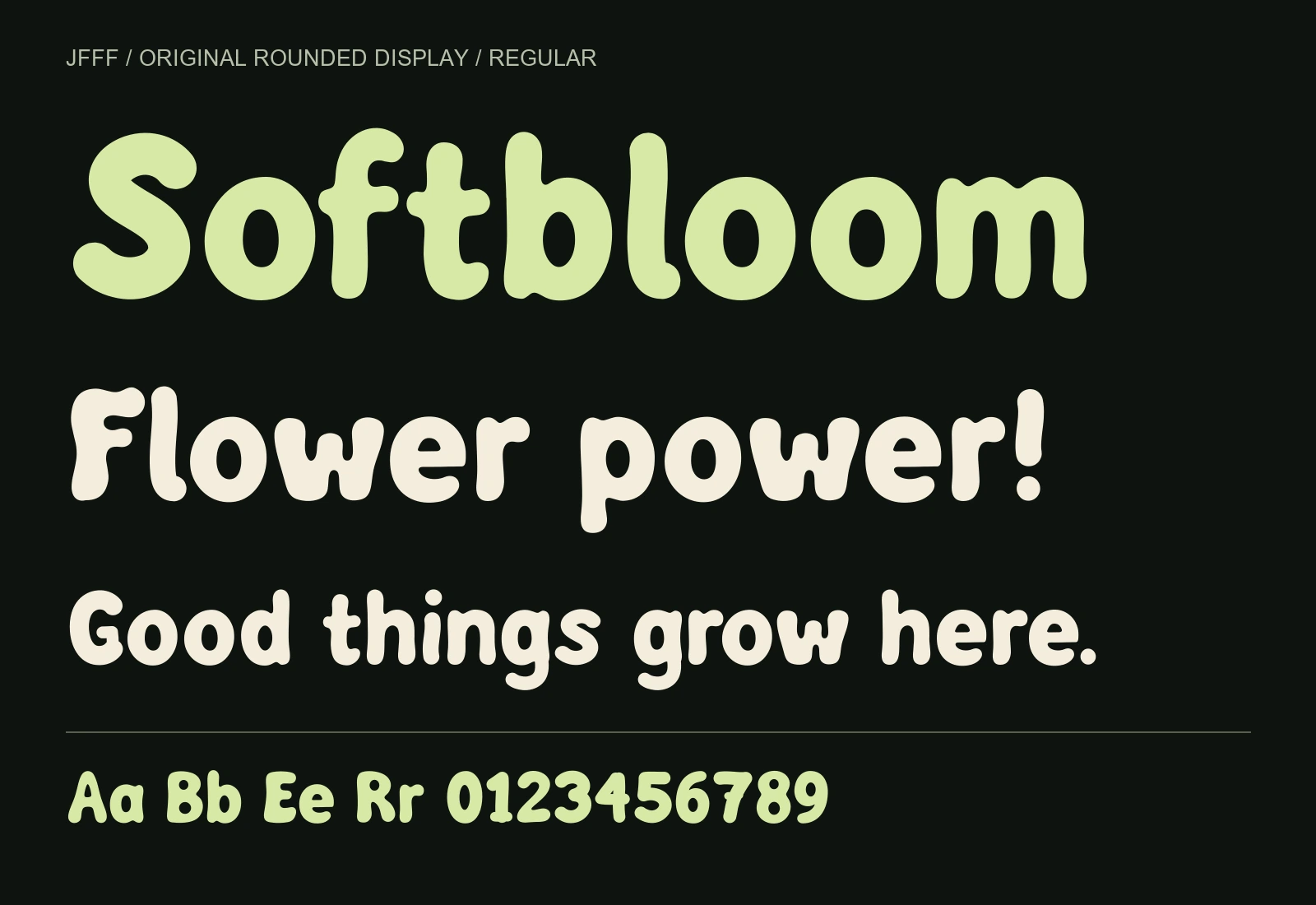
Softbloom rounded bubble font: Flower power! Good things grow here. Uppercase, lowercase and numbers.
Softbloom pairs inflated curves with open counters and a steady baseline. Its flowing F, broad W and soft R bring a playful character to store identities, event posters, packaging and short website headings.
Use 32–160 px for web headings or 24–120 pt for print titles. Start with zero tracking and kerning enabled. Pair it with a quieter text face for paragraphs, captions and navigation.
Playful store identities, packaging, event posters and short web headings. Use 32–160 px on the web or 24–120 pt in print; choose another face for body text.